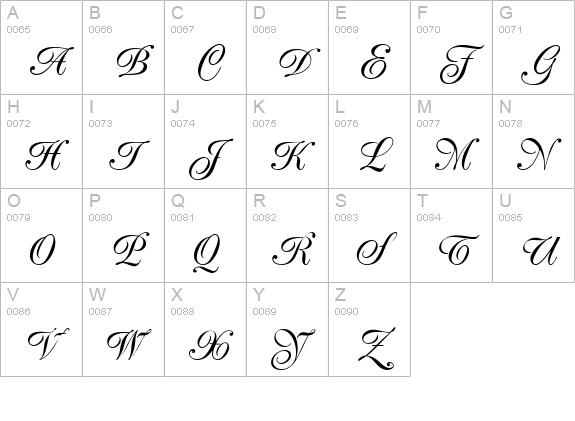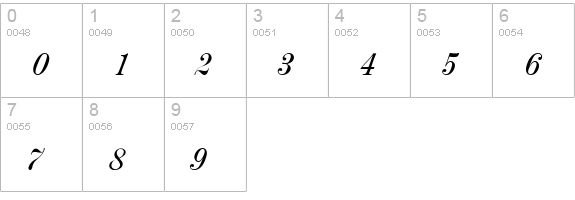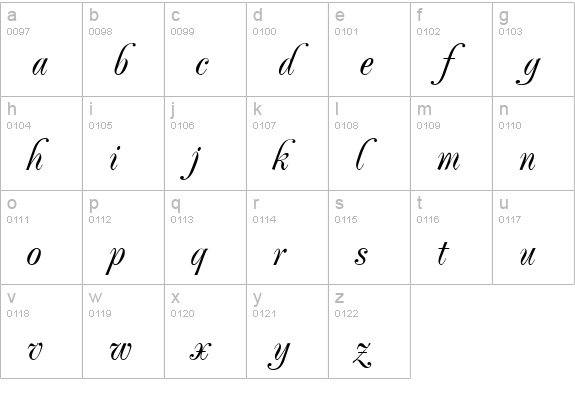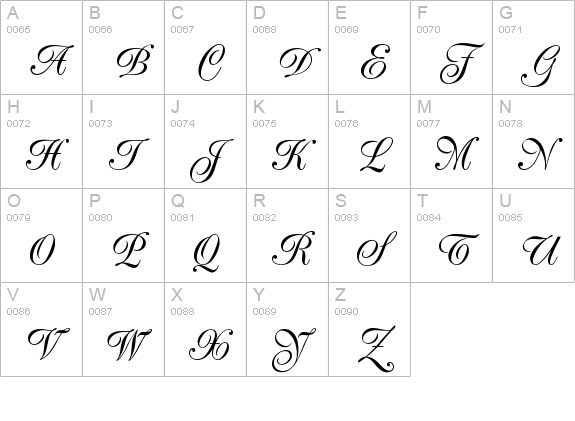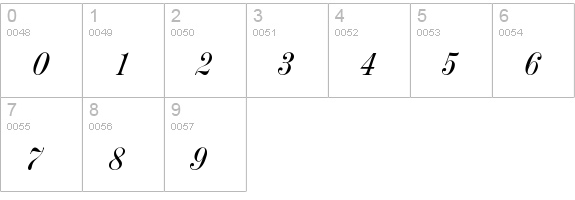
Poppl Exquisit (R) Regular is the standard, neutral variant in the Poppl typeface family \xE2\x80\x94 well suited to general body text, paragraphs, and standard typographic work.
Poppl Exquisit (R) Regular font is a sophisticated and elegant typeface that exudes luxury and style. With its clean lines and timeless design, this font is perfect for creating high-end branding, advertisements, invitations, and more. What sets Poppl Exquisit (R) Regular font apart is its versatility - it can be used for both formal and casual projects, adding a touch of class to any design. Whether you're working on a wedding invitation or a luxury product packaging, this font will surely elevate your work to the next level. Best of all, Poppl Exquisit (R) Regular font is available for free download at FontsMarket.com. This means that you can easily access this premium font without any cost, making it a valuable addition to your font library. Don't miss out on the opportunity to enhance your designs with the timeless beauty of Poppl Exquisit (R) Regular font.